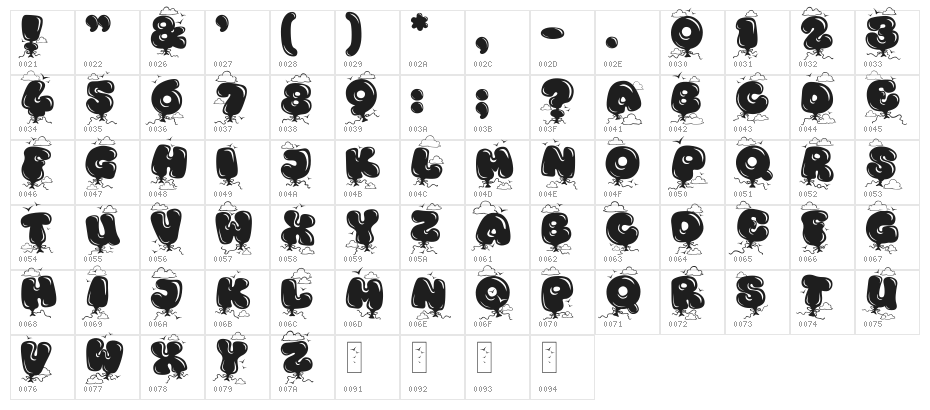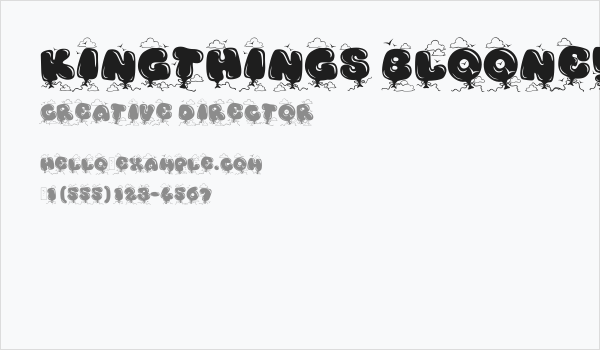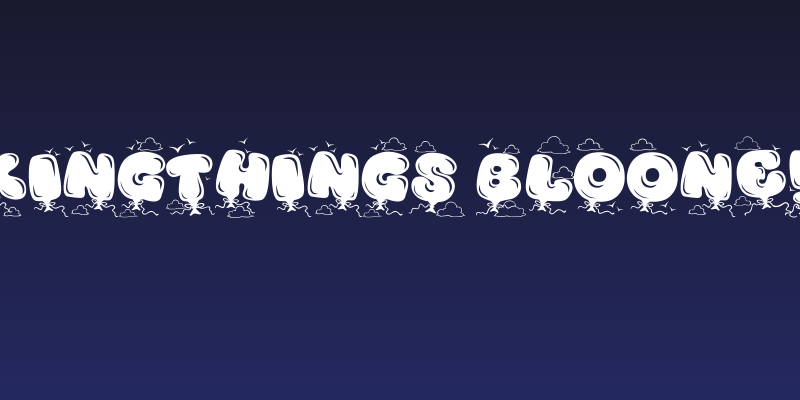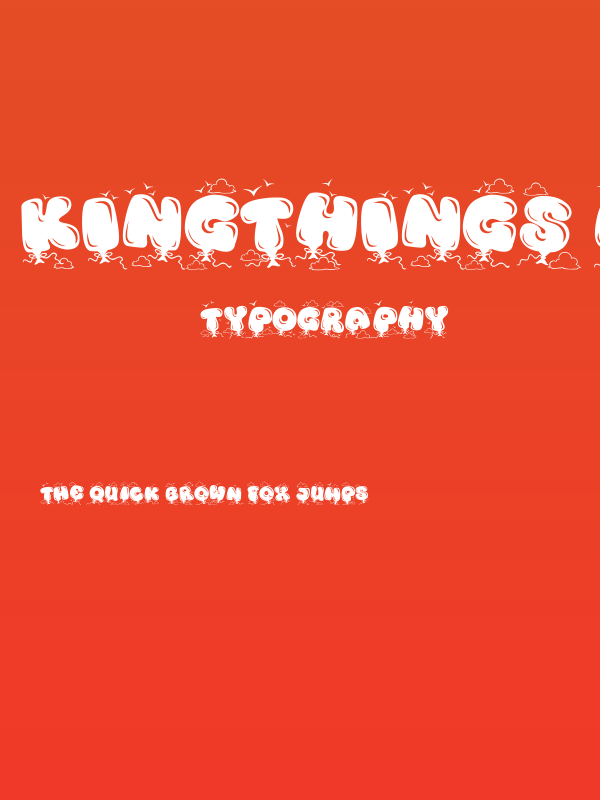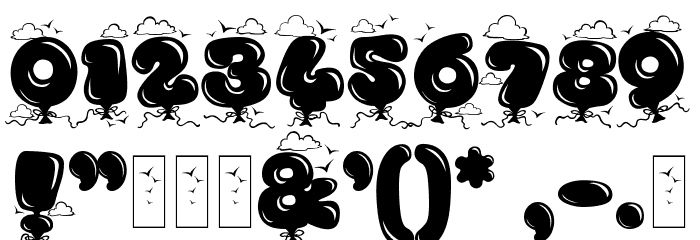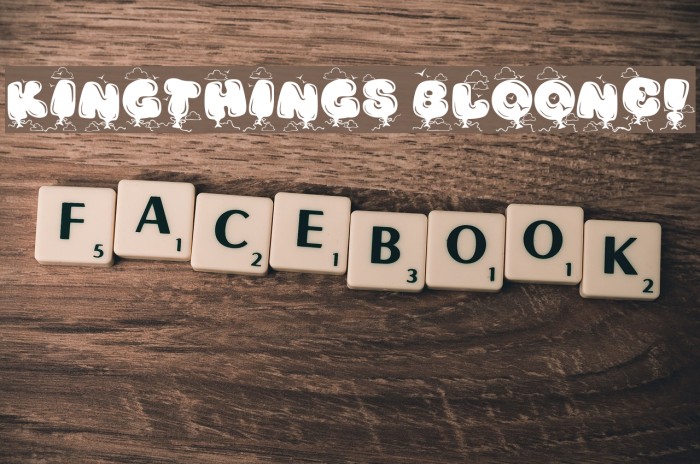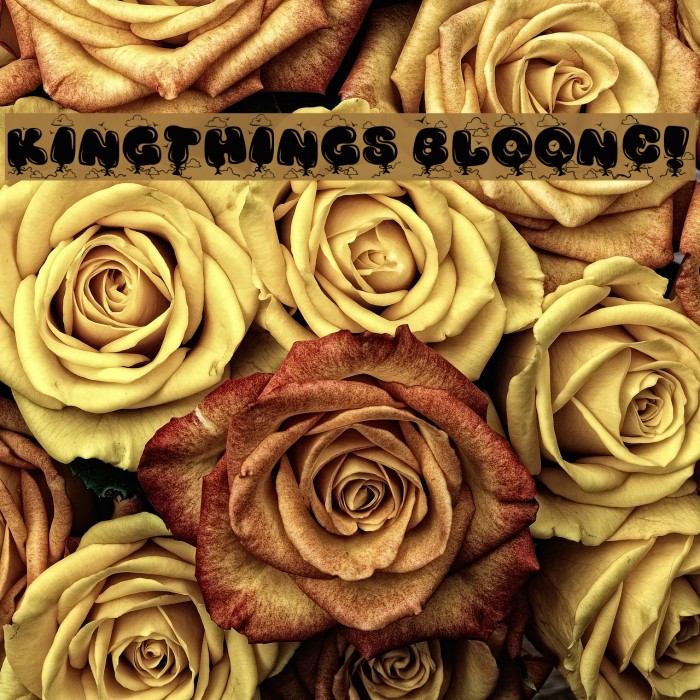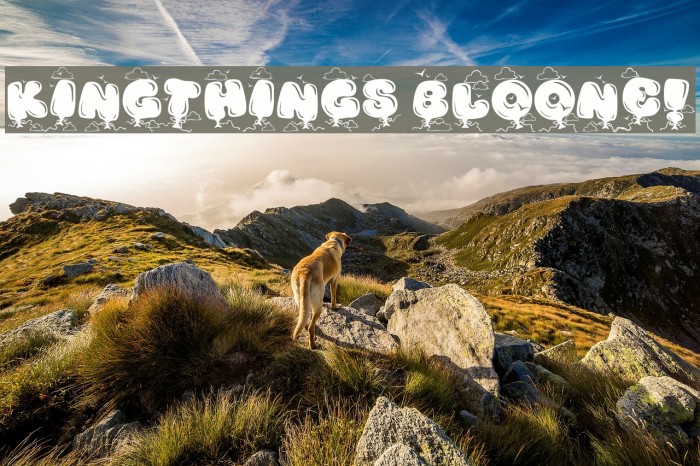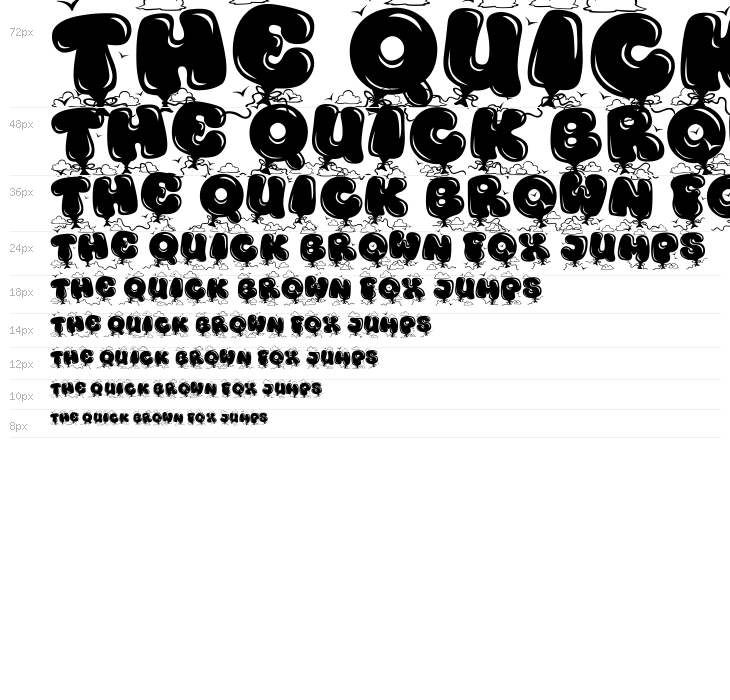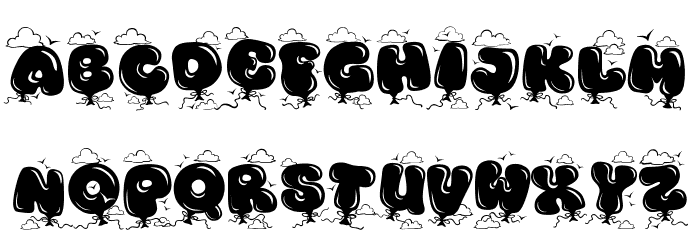
Kingthings Bloone! Font
Kingthings Bloone! Description
This playful and whimsical font features bold, balloon-like characters that are filled with a sense of fun and creativity. Each letter appears to be inflated, giving it a three-dimensional, puffy appearance. The font is characterized by its rounded edges and smooth curves, creating a soft and approachable look. The letters are adorned with small decorative elements, such as tiny birds and clouds, adding to the font's playful nature. This design is perfect for projects that require a lighthearted and cheerful touch, making it ideal for children's materials, party invitations, or any creative endeavor that seeks to capture a sense of joy and imagination.
| Overall Style | Whimsical |
| Proposed Projects | Ideal for children's books, party invitations, playful branding, and creative posters. |